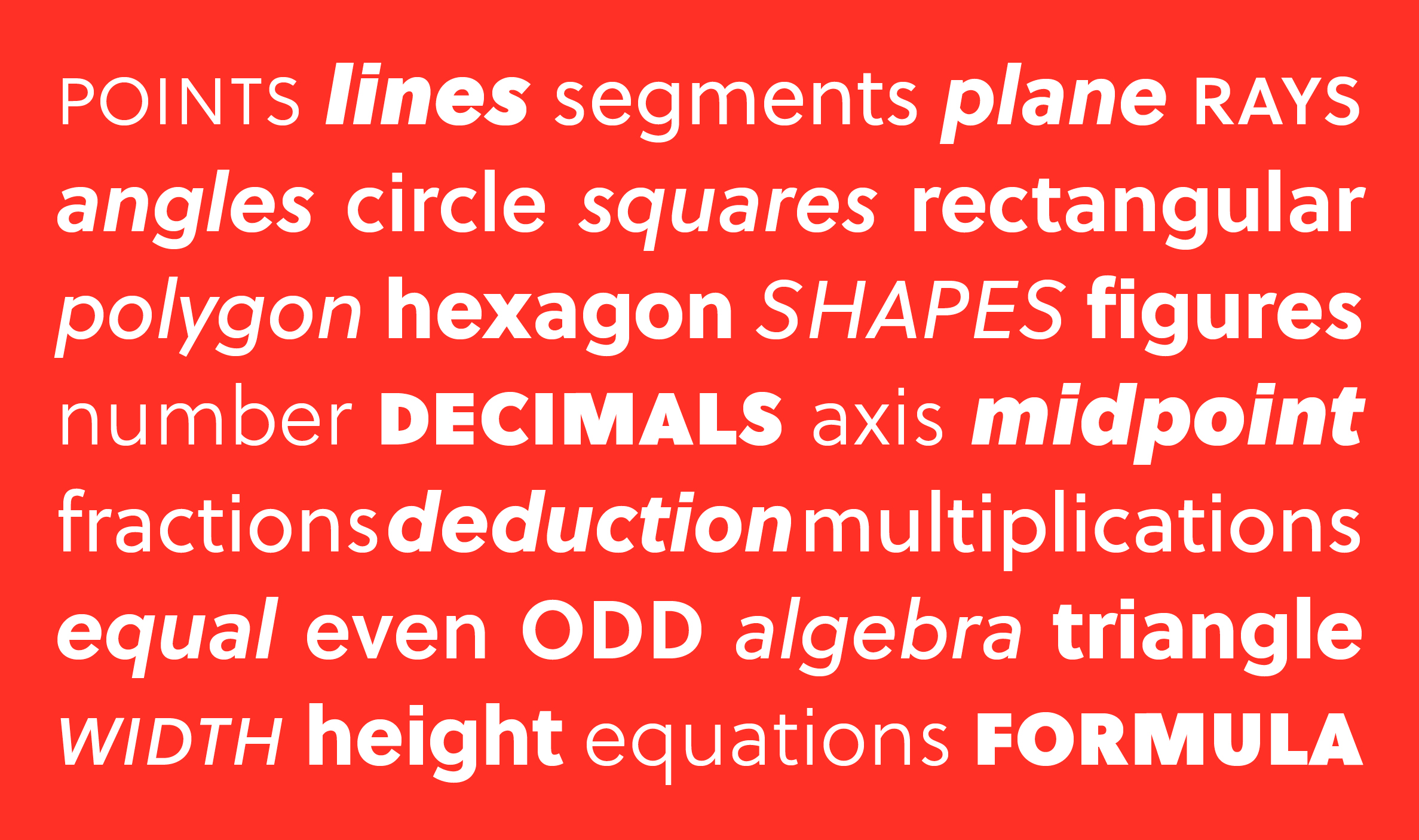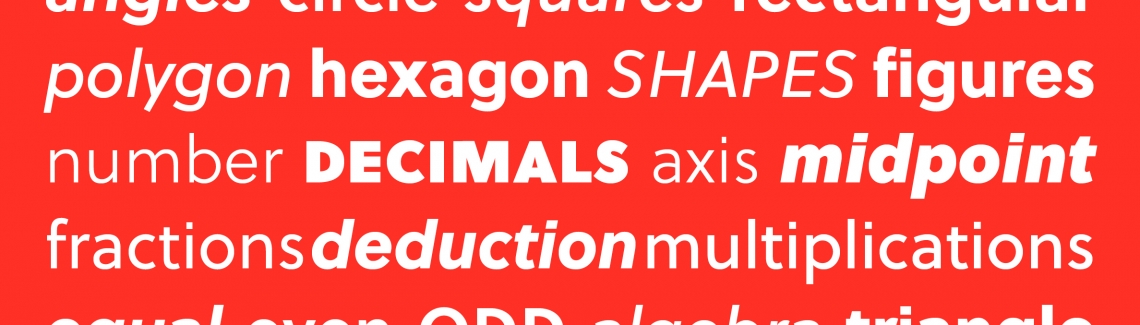
Soleil update release
Back in Black! Wolfgang Homola’s tranquil and fresh geometric sans font family Soleil has been renovated and extended.
A few years ago Wolfgang Homola released his two-sided Soleil family. One side is a text-and-headline-worthy sans serif. The other side is a mind-bending, two-part display weight named Soleil Magic Caps, which really impresses when it’s set in two colours. Well, that wasn’t good enough for the designer, so we are happy to announce the update you’ve been begging for!
A Black and Black Italic weight have been added for even punchier headlines, the character set has been expanded, and OpenType features have been fine-tuned. If you own a Soleil license, then simply log in and download the updated files from your TypeTogether account. Otherwise, let your jealousy run amok as you revel in the following images.